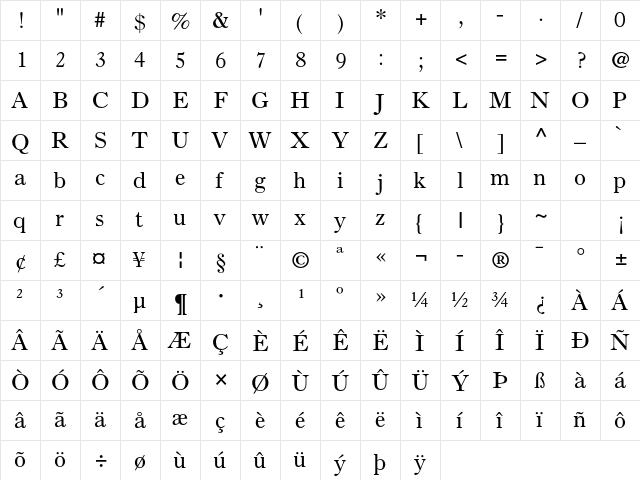
Old Style 7 Std Roman
Old Style 7 Std is a composed and adaptable typeface that performs quietly and consistently across a wide range of design contexts.